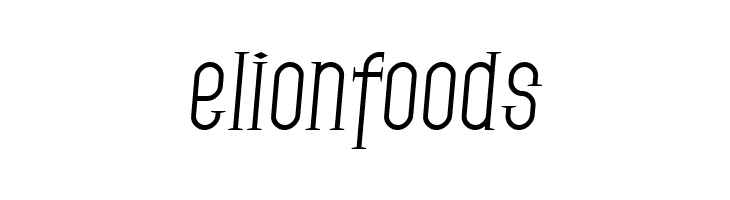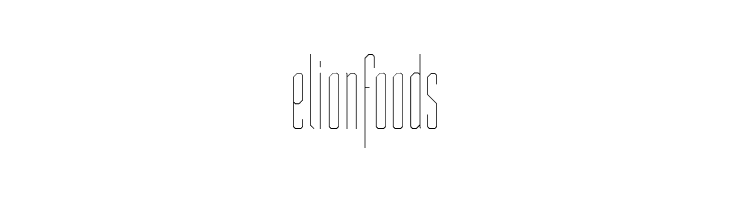
A modern, elegant font with thin, elongated strokes and slight serifs.
A bold, italic serif font with a modern, dynamic style.
A narrow, italicized font with medium contrast and a modern style.
A modern, high-contrast serif font with tall, narrow letterforms and elegant serifs.
An elegant, modern font with thin, elongated strokes and a dynamic slant.
A bold, condensed, and italicized font with sharp angles and dynamic style.
A bold, high-contrast font with a modern and elegant design.
A sleek, modern italic font with elongated, condensed letterforms and moderate contrast.
A modern italic font with a sleek and dynamic style.
A tall, narrow font with a modern and sleek design.
A sleek, modern italic font with medium contrast and elegant curves.
A tall, slender, and modern typeface with a geometric and minimalist design.
A tall, narrow, and modern font with thin, consistent strokes.
A tall, ultra-thin, and modern font with a sleek and elegant design.
A sleek, elongated oblique font with a modern and dynamic style.
A sleek, elongated, and oblique font with fine lines and a modern aesthetic.
A sleek, modern thin italic font with a dynamic and elegant style.
A sleek, elongated font with thin strokes and a modern, elegant style.
A sleek, modern, light italic font with elegant curves and minimal contrast.
A modern, tall, and narrow font with clean lines and minimal curves.
A modern, tall, and narrow unicase font with a sleek design.
A tall, narrow, and modern unicase font with consistent stroke width.
A tall, narrow typeface with thin, consistent strokes and a modern aesthetic.
A modern, condensed italic font with sleek, elongated characters.
A modern, elongated font with tall, narrow characters and a sleek design.
A tall, narrow, and modern font with consistent stroke thickness.